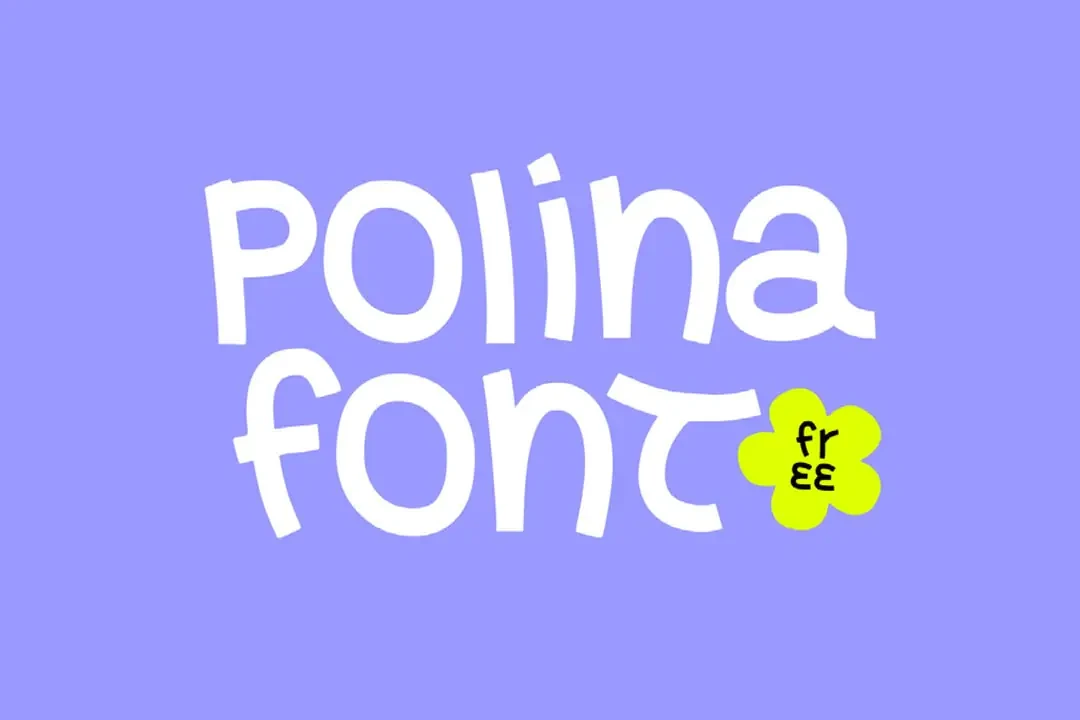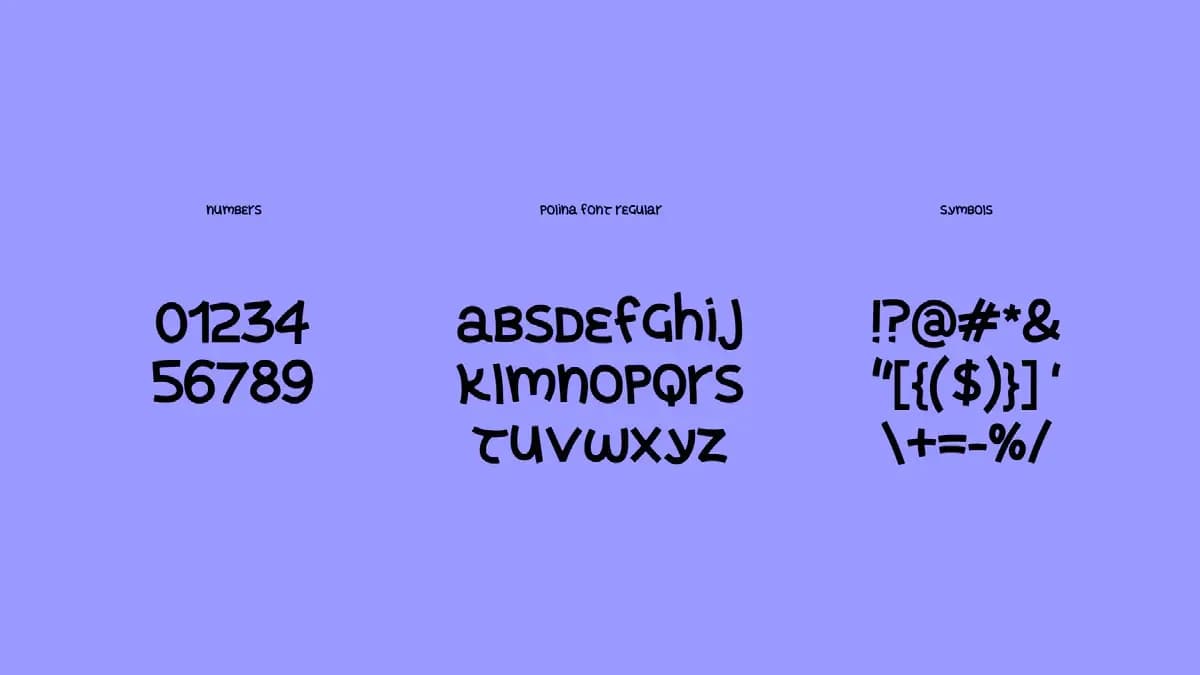
Polina Font
Polina Font is designed for those who love creating impressive headlines.
Introducing a stylish and creative headline font — and it's completely free! Polina Font is designed for those who love creating impressive headlines. Whether it's for a logo, poster, or postcard, this font is the perfect choice. Download it now and let your creativity shine!